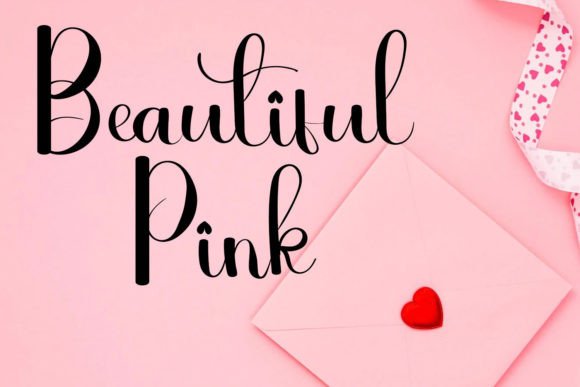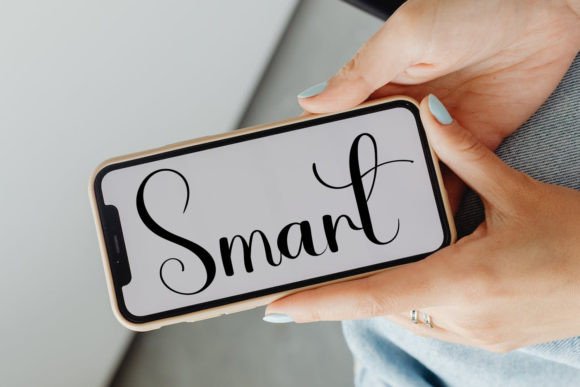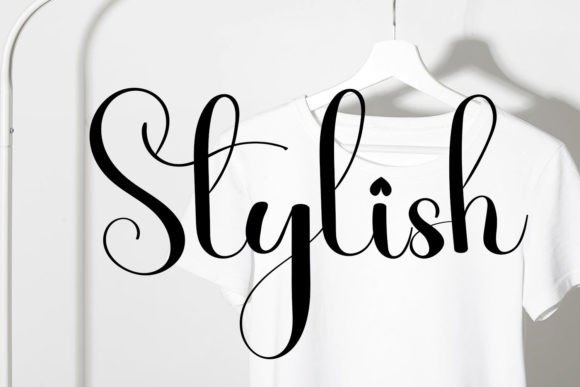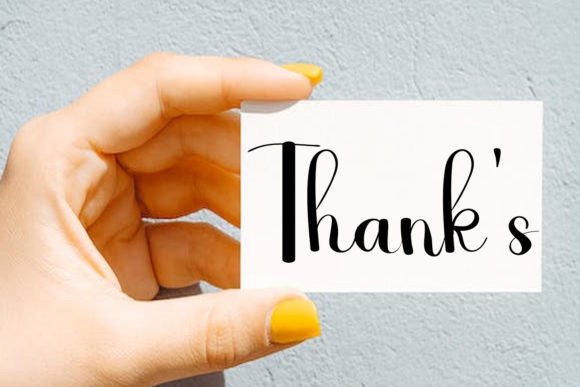
Easter Font: Elevate Your Designs with a Fresh and Beautiful Typeface
Are you a designer or crafter looking for a unique and simple font to elevate your designs? Look no further than the Easter Font! This stunning typeface is perfect for a variety of design purposes, including YouTube banners, cover logo mockups, wedding invitations, flyers, and crafts. In this article, we’ll explore the features and benefits of the Easter Font, and how it can help take your business to the next level.
What is Easter Font?
Easter Font is a beautifully crafted typeface that exudes freshness and elegance. Its unique design makes it stand out from other fonts, making it perfect for designers and crafters who want to add a touch of sophistication to their work. Whether you’re creating a YouTube banner, a wedding invitation, or a flyer, this font is sure to impress.
Key Features of Easter Font
- Fresh and Beautiful Design: Easter Font boasts a fresh and beautiful design that is sure to capture the attention of your audience.
- Simple and Unique: This font is simple yet unique, making it perfect for designers and crafters who want to add a touch of elegance to their work.
- Versatile: Easter Font is versatile and can be used for a variety of design purposes, including YouTube banners, cover logo mockups, wedding invitations, flyers, and crafts.
- Easily Readable: This font is easily readable, making it perfect for body text and headings.
Benefits of Using Easter Font
By using Easter Font in your designs, you can enjoy a range of benefits, including:
- Professional Look: Easter Font gives your designs a professional look that is sure to impress your audience.
- Increased Engagement: The unique design of this font can help increase engagement and attract more attention to your designs.
- Business Growth: By using Easter Font, your business can progress and develop, helping you to achieve your goals.
How to Use Easter Font
- YouTube Banners: Use Easter Font to create stunning YouTube banners that showcase your brand’s personality.
- Wedding Invitations: Add a touch of elegance to your wedding invitations with Easter Font.
- Flyers: Use Easter Font to create eye-catching flyers that grab attention.
- Crafts: Easter Font is perfect for crafters who want to add a personal touch to their projects.
Tips for Getting the Most Out of Easter Font
Here are some tips for getting the most out of Easter Font:
- Experiment with Different Sizes: Experiment with different font sizes to find the perfect size for your design.
- Pair with Other Fonts: Pair Easter Font with other fonts to create a unique and interesting design.
- Use in Combination with Images: Use Easter Font in combination with images to create a visually appealing design.